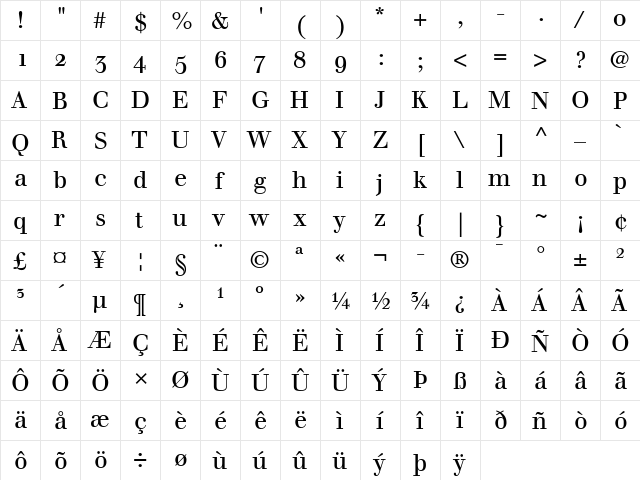
Walbaum RomanOsF Regular
Design Context for Walbaum RomanOsF Typeface
Walbaum RomanOsF offers clean, dependable letterforms without strong stylistic allegiance, making it a practical choice for designers who need flexibility.